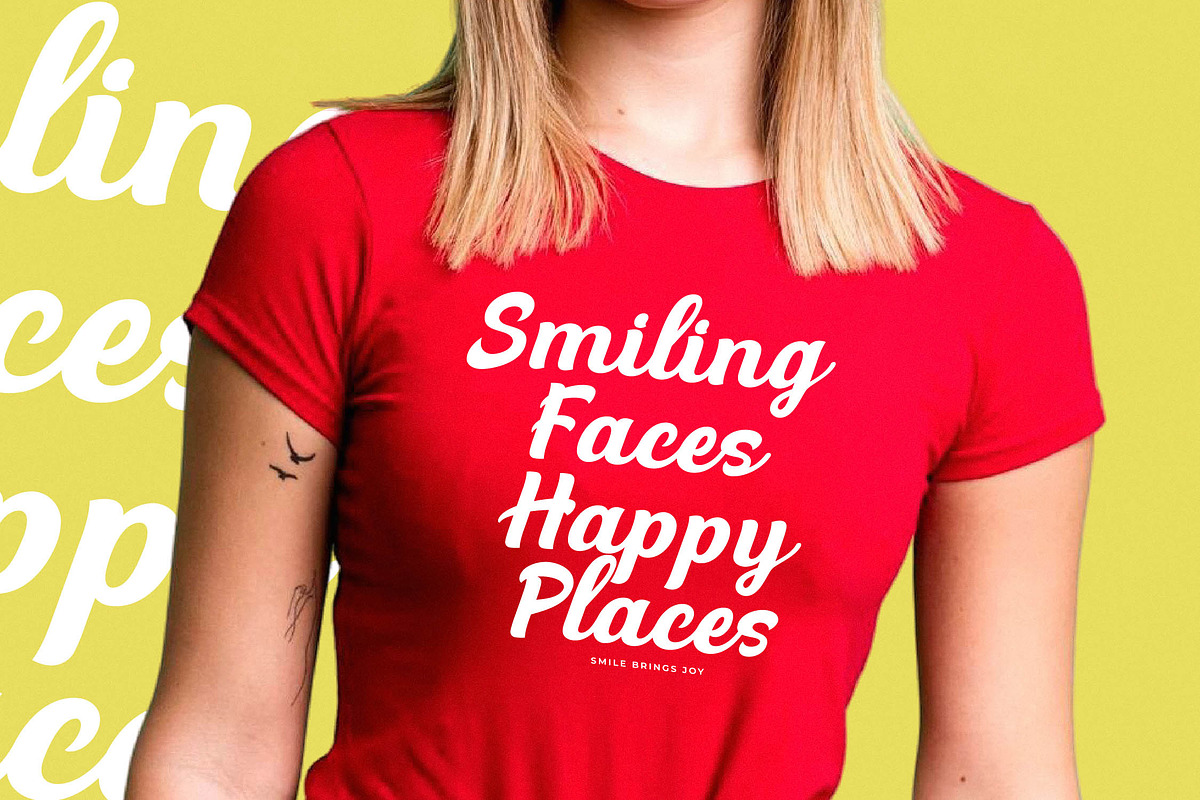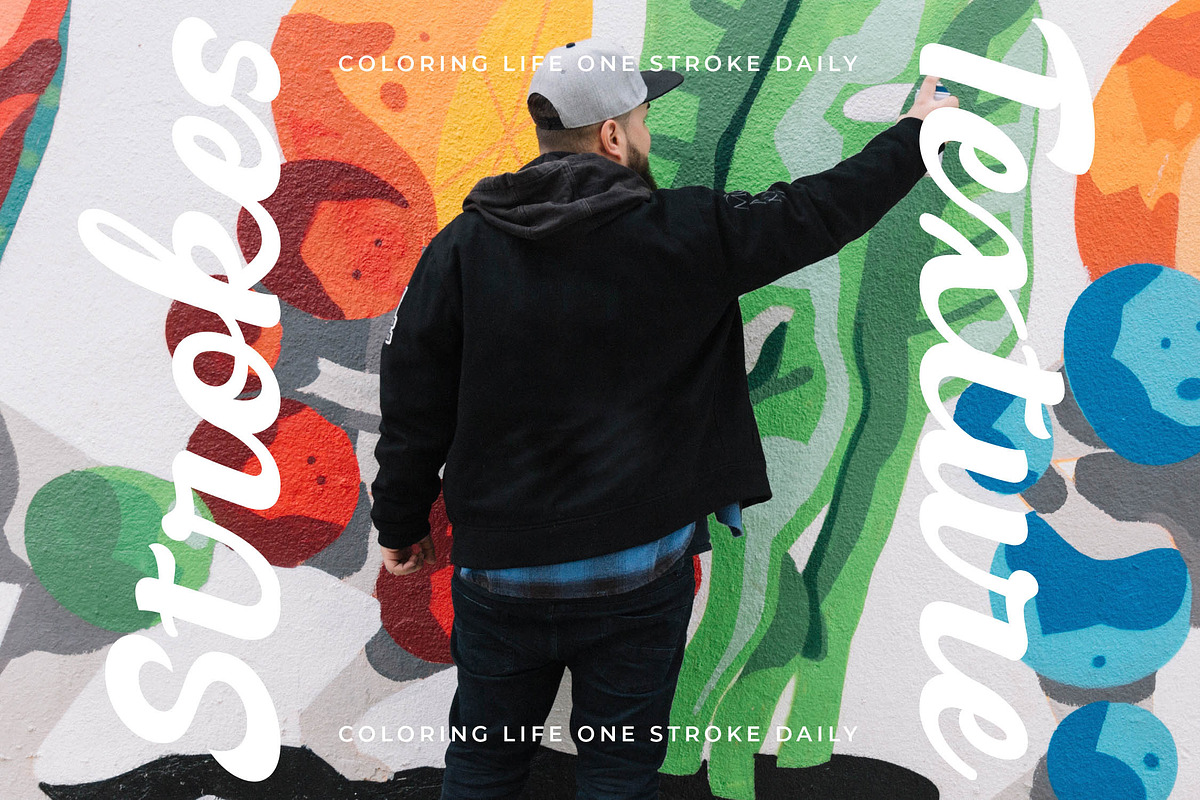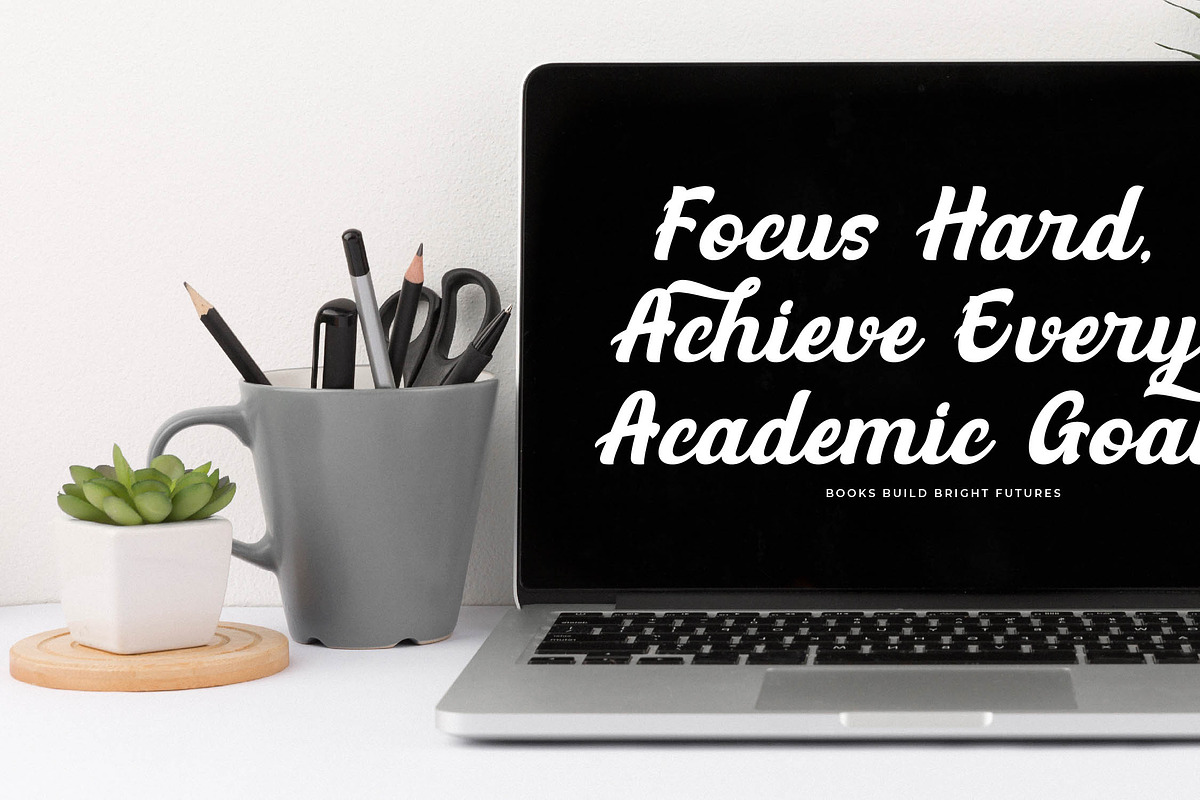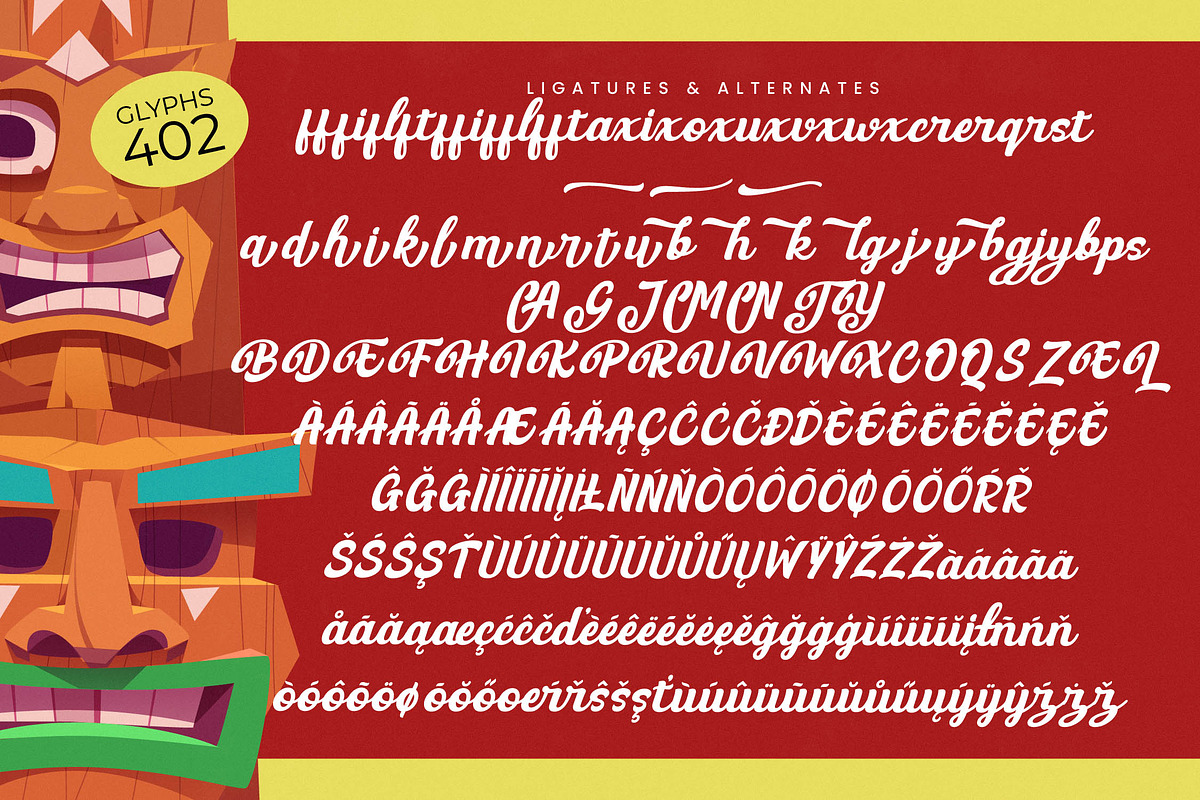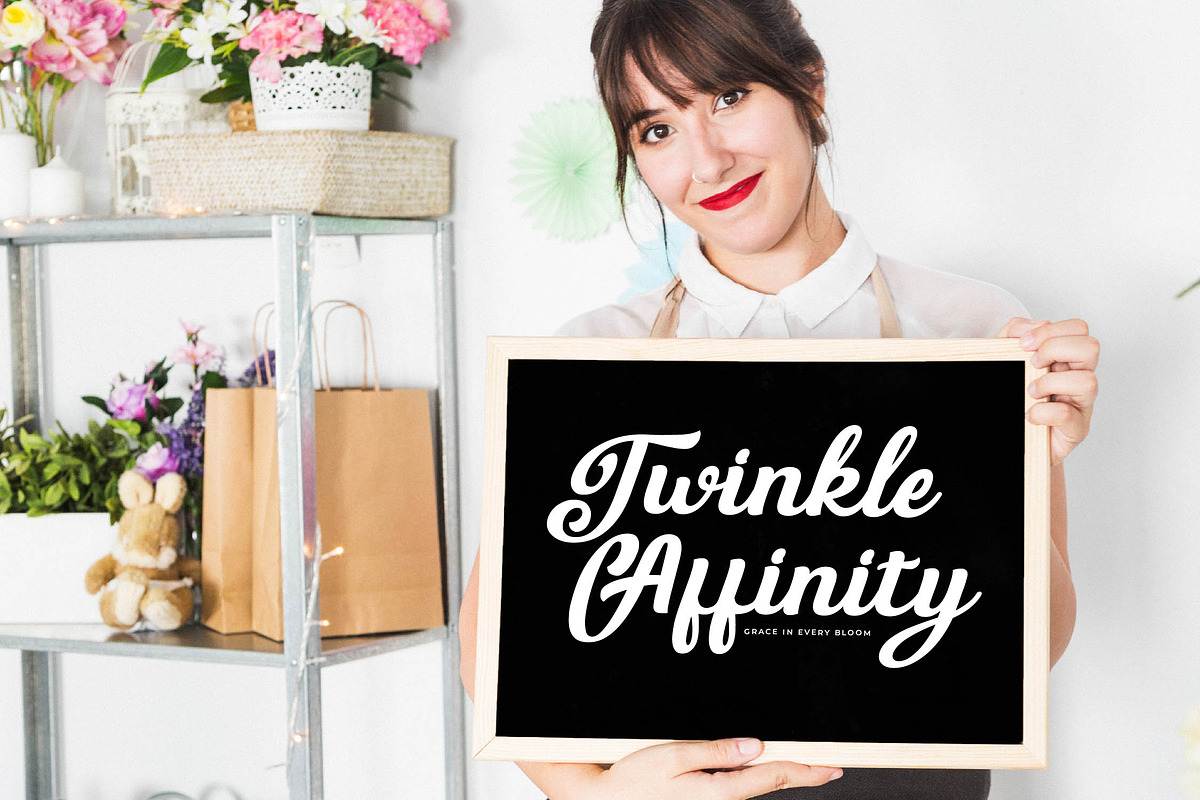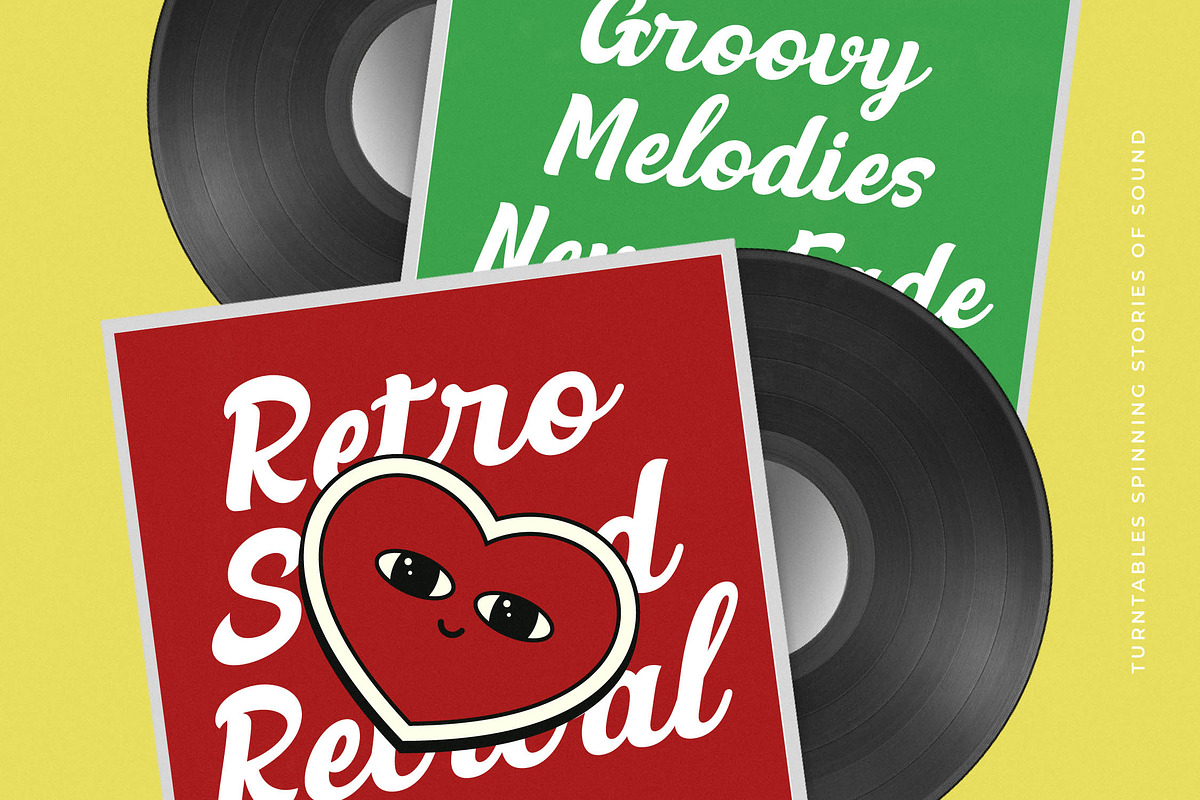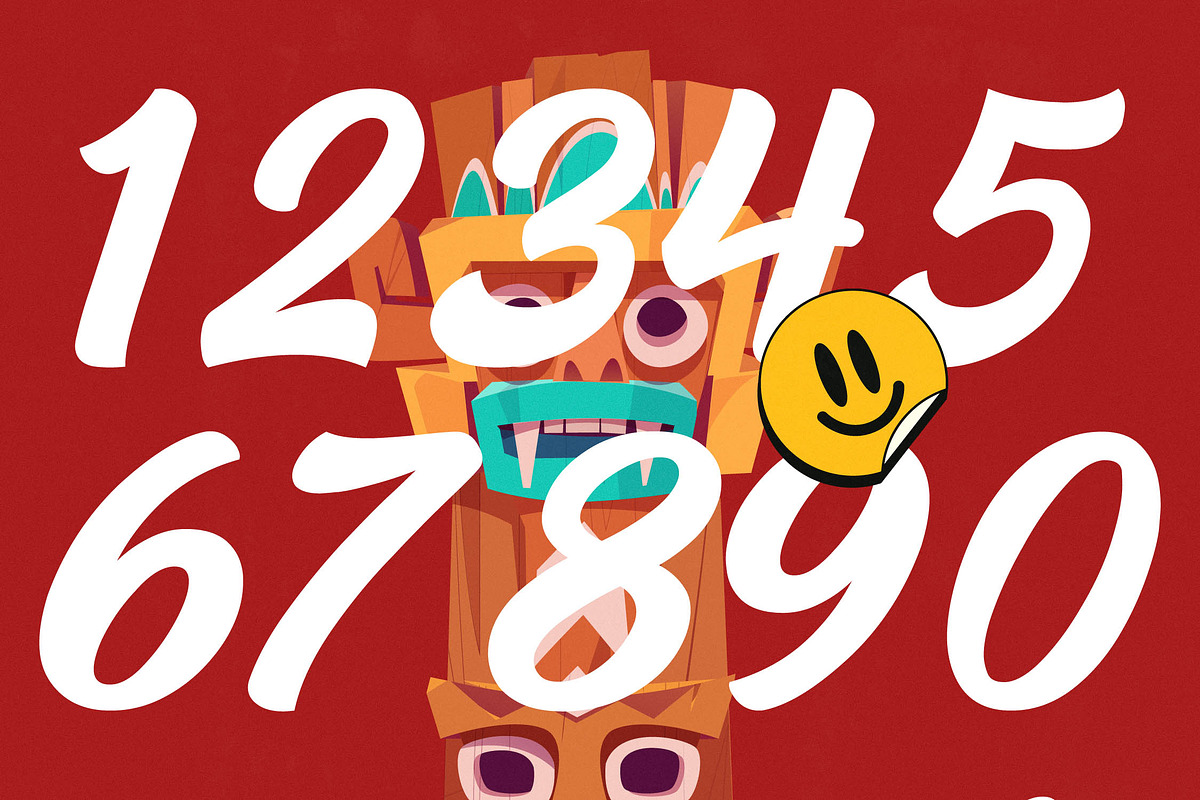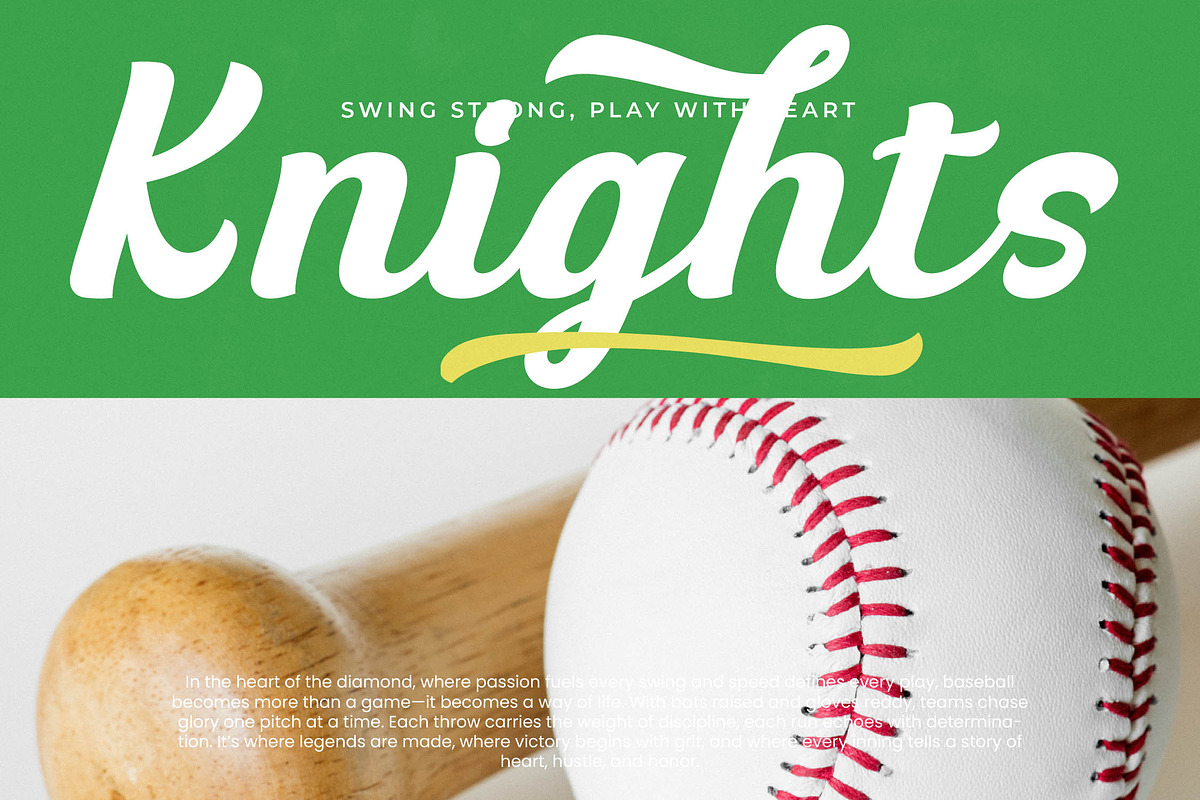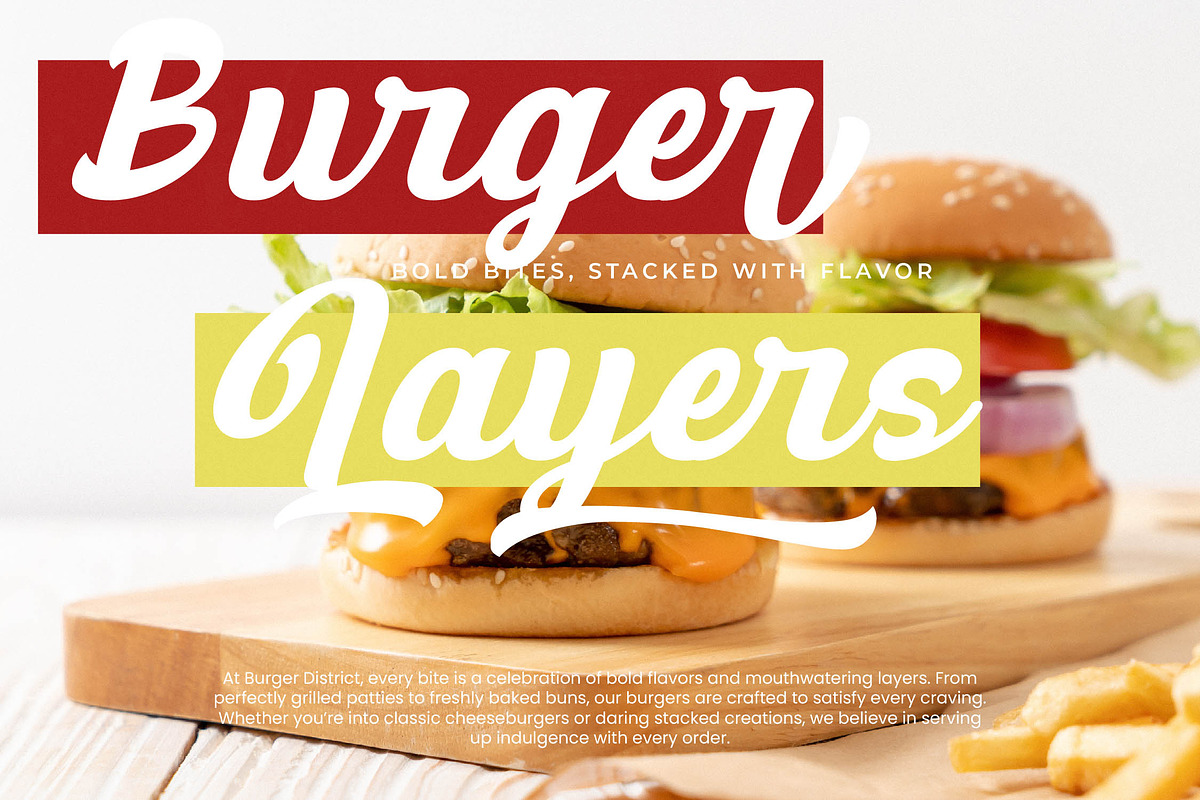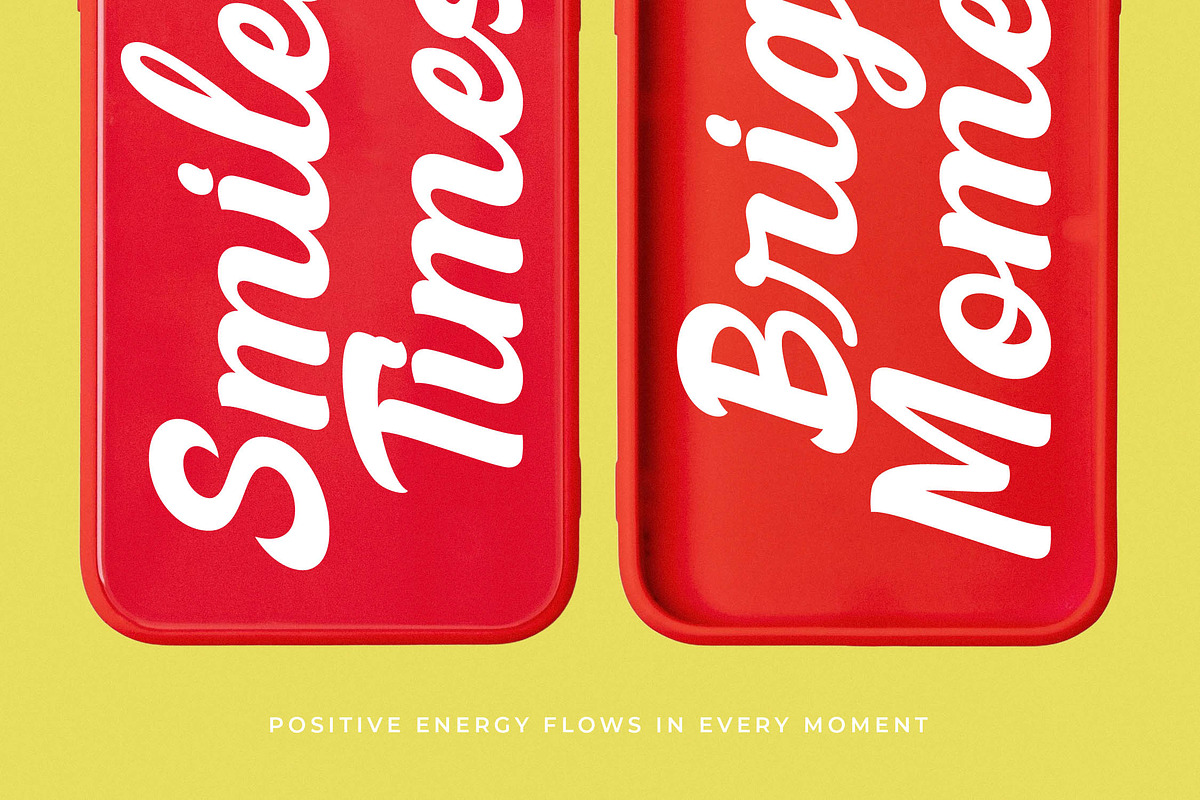
America League Modern Bold Script
Experience the dynamic energy of America League, a typeface designed to command attention and infuse your designs with a dynamic sense of movement. This masterfully crafted script captures the spirit of classic Americana while remaining perfectly suited for sophisticated contemporary creative projects.
Drawing inspiration from vintage sports iconography and the relaxed aesthetic of mid-century tiki culture, this font bridges the gap between rugged athleticism and leisure. Its flowing curves and weighted strokes evoke the meticulous craftsmanship of hand-lettered signage found in classic baseball stadiums and tropical escapes alike.
With its powerful presence and fluid motion, this font delivers a modern script display that prioritizes luxury typography through seamless connections. It is a high-performance editorial font specifically crafted for maximum branding impact, ensuring your message feels both approachable and authoritative in any medium.
Riding the wave of the current modern script trend, this typeface fulfills the growing demand for editorial display fonts that feel personal yet professional. It caters perfectly to the rise of character-driven typography where every letterform tells a unique story of heritage and bold innovation.
This versatile typeface is the ultimate choice for high-end logo design and comprehensive branding systems across various industries. It excels in editorial layouts, custom packaging for artisanal goods, sophisticated wedding invitations, and cutting-edge fashion lookbooks or retail signage.
The package is loaded with over 400 glyphs, including a massive selection of ligatures and alternates to create custom-looking text effects. It features full multilingual support and international characters with specialized swashes, allowing you to reach a global audience with ease.
- Ligature 17 Alternate 55